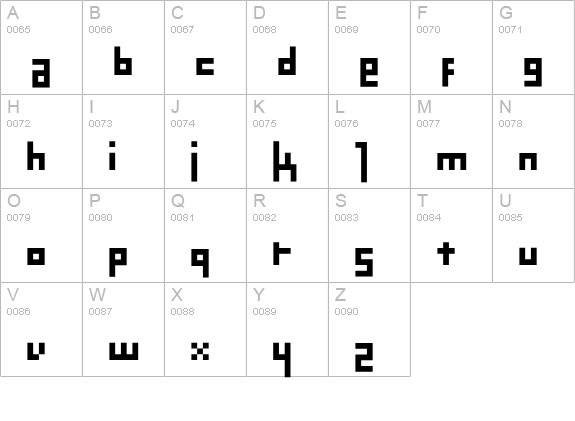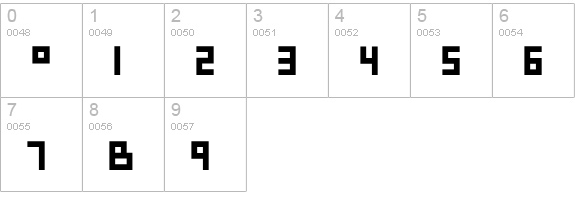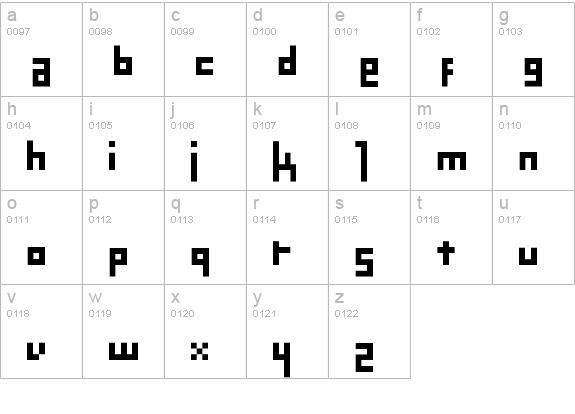
Mekanek Font Details
Mekanek font is a modern and stylish typeface that exudes a sense of sophistication and creativity. Its sleek lines and sharp angles give it a futuristic look that is perfect for a variety of design projects. Whether you are working on a logo, website, or print materials, Mekanek font will add a touch of elegance and professionalism to your work. The best part? Mekanek font is completely free to download at FontsMarket.com. You can easily access this versatile font and use it in your projects without any cost. With its bold and eye-catching appearance, Mekanek font is sure to make a statement and leave a lasting impression on your audience. Elevate your designs with Mekanek font today and watch your creativity soar to new heights.